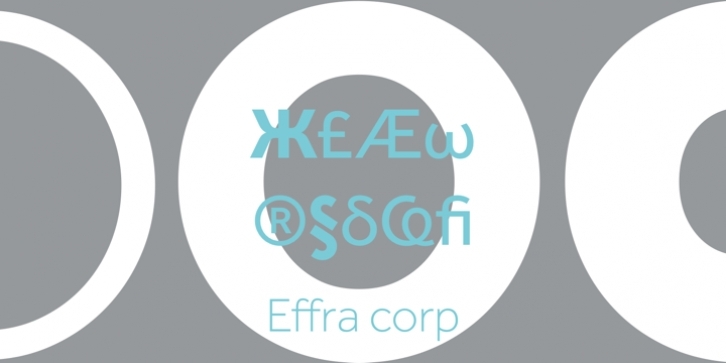
The Effra font family has its roots in one of the earliest sans-serif designs commercially available, Caslon Junior, from 1816. Our design is updated for contemporary use, and has been expanded to our Standard character set. While it is not strictly a font intended for setting body copy, the resulting family does function well at text sizes. Effra can be effortlessly applied to a wide range of messages and media, from advertising to book design. Its five weights satisfy the need for flexibility, creating harmonious variations of texture and emphasis.
Effra’s overriding design features are its clean lines and open proportions; its circular characters hint at a geometric basis and express modernity. Where traditional Grotesque features are expected, the font family surprises with soft and humanist design details. This, combined with Effra’s subtle spacing and abundant kern pairs, creates a very even texture. Effra is a truly unique design that stands out from the crowd, but has the ability to blend perfectly with other design elements, making it well-suited to magazine design, branding, and corporate identities.
The Corp version of Effra supports Cyrillic and Greek.